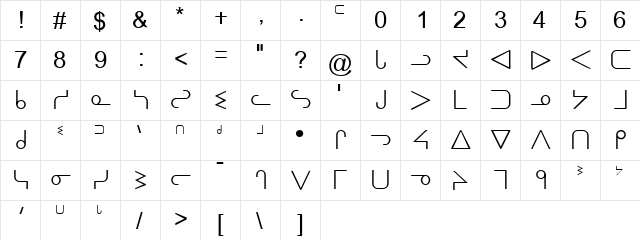
Ojibway Normal
Design Context for Ojibway Typeface
Ojibway offers clean, dependable letterforms without strong stylistic allegiance, making it a practical choice for designers who need flexibility.